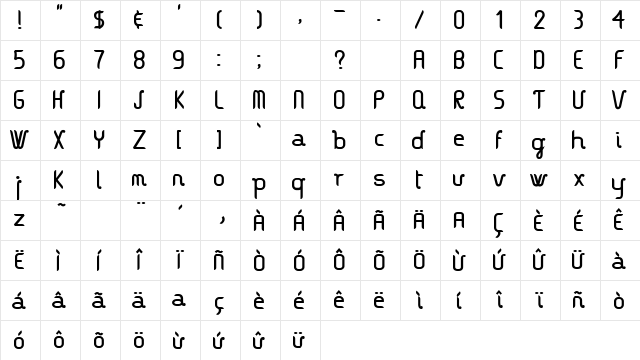
Complete Vague Regular glyph index. Displaying only characters natively supported by Vague Regular font.
Vague is a composed and adaptable typeface that performs quietly and consistently across a wide range of design contexts.